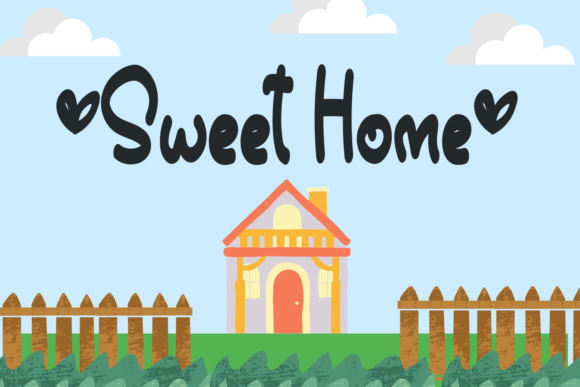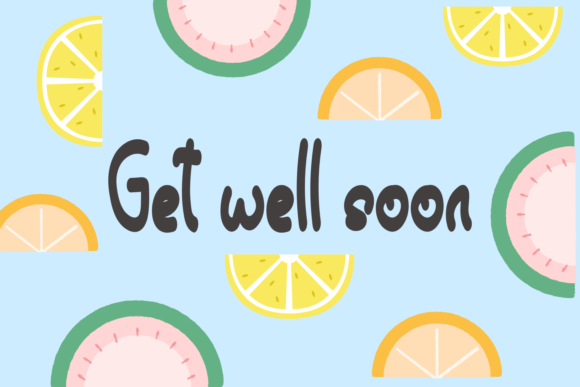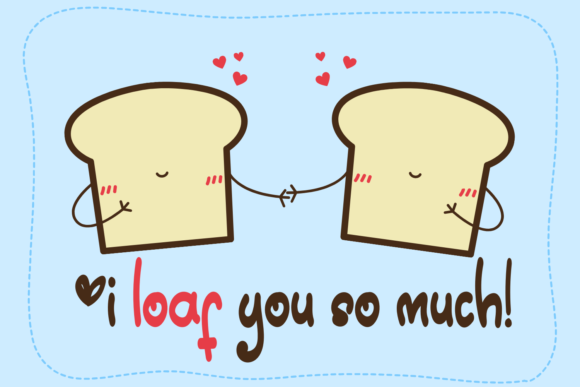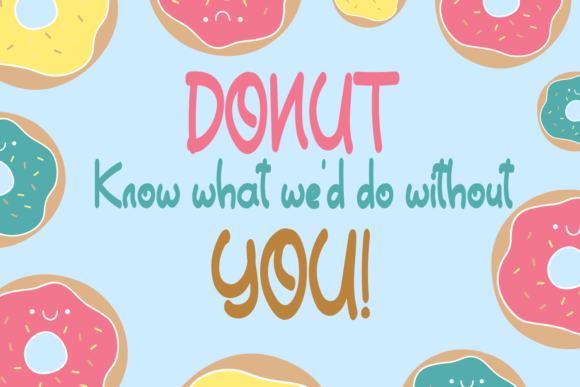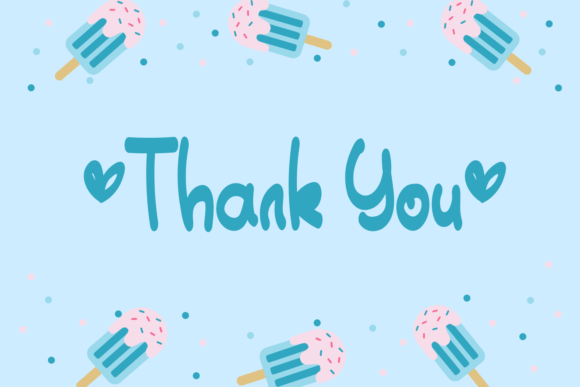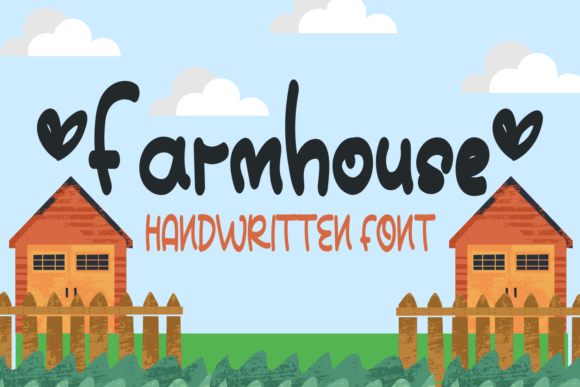
Introducing Farmhouse Font: A Sweet Paint Brushed Handwritten Delight
Are you a designer, crafter, or DIY enthusiast looking for a font that adds a touch of rustic charm to your projects? Look no further than Farmhouse Font, a sweet paint brushed handwritten font that’s perfect for a wide range of designs. With its natural and unique style, Farmhouse Font is incredibly versatile and can be used in various creative endeavors, limited only by your imagination!
The Charm of Farmhouse Font
Farmhouse Font boasts a distinctive, hand-painted look that’s reminiscent of traditional farmhouse signs, rustic wood, and vintage decorations. Its soft, brushed strokes and subtle imperfections evoke a sense of warmth and coziness, making it an excellent choice for designs that require a personal touch. Whether you’re working on a logo, invitation, packaging, or social media graphics, Farmhouse Font is sure to add a dash of country charm and whimsy.
What Makes Farmhouse Font So Versatile?
Farmhouse Font’s adaptability lies in its unique blend of rustic and elegant features. The font’s natural, handwritten style allows it to seamlessly integrate with various design aesthetics, from vintage and shabby chic to modern and minimalist. Here are just a few examples of how you can use Farmhouse Font in your designs:
- Wedding and Event Invitations: Add a touch of rustic romance to your wedding or event invitations with Farmhouse Font. Its elegant, yet informal style makes it perfect for save-the-dates, wedding programs, and party decorations.
- Branding and Packaging: Use Farmhouse Font to create eye-catching labels, product packaging, and business cards that reflect your brand’s rustic charm.
- Social Media Graphics: Create engaging social media graphics, such as quote overlays, blog post headers, and Instagram stories, with Farmhouse Font’s distinctive style.
- Crafting and DIY Projects: Add a personal touch to your crafting and DIY projects, such as wood signs, cutting boards, and handmade cards, with Farmhouse Font.
Tips for Using Farmhouse Font Effectively
To get the most out of Farmhouse Font, here are some tips to keep in mind:
- Pair with contrasting fonts: Combine Farmhouse Font with a clean, sans-serif font to create visual interest and balance.
- Experiment with colors: Try pairing Farmhouse Font with a range of colors, from earthy tones to bold brights, to add depth and personality to your designs.
- Don’t be afraid to get creative: Farmhouse Font is perfect for designs that require a personal touch. Experiment with different styles, textures, and embellishments to make your designs truly unique.
Farmhouse Font is a sweet paint brushed handwritten font that’s sure to delight designers, crafters, and DIY enthusiasts alike. With its natural and unique style, Farmhouse Font is incredibly versatile and can be used in a wide range of designs, from wedding invitations to social media graphics. So why wait? Get creative with Farmhouse Font and add a touch of rustic charm to your projects!